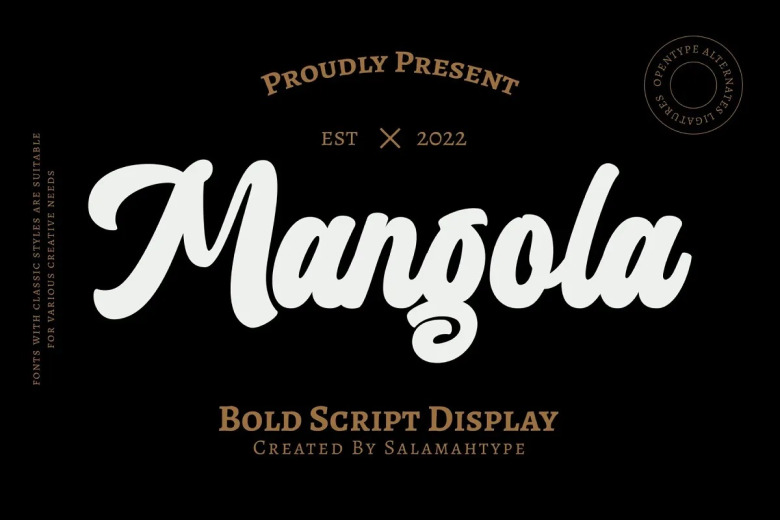
Mangola Font
On the other hand, there is Mangola. It is this cool bold calligraphy script. This font is suitable for those of you who want to develop brand character. In other words, logos, product packaging, labels and whatever may be.
Mangola Bold Script Font